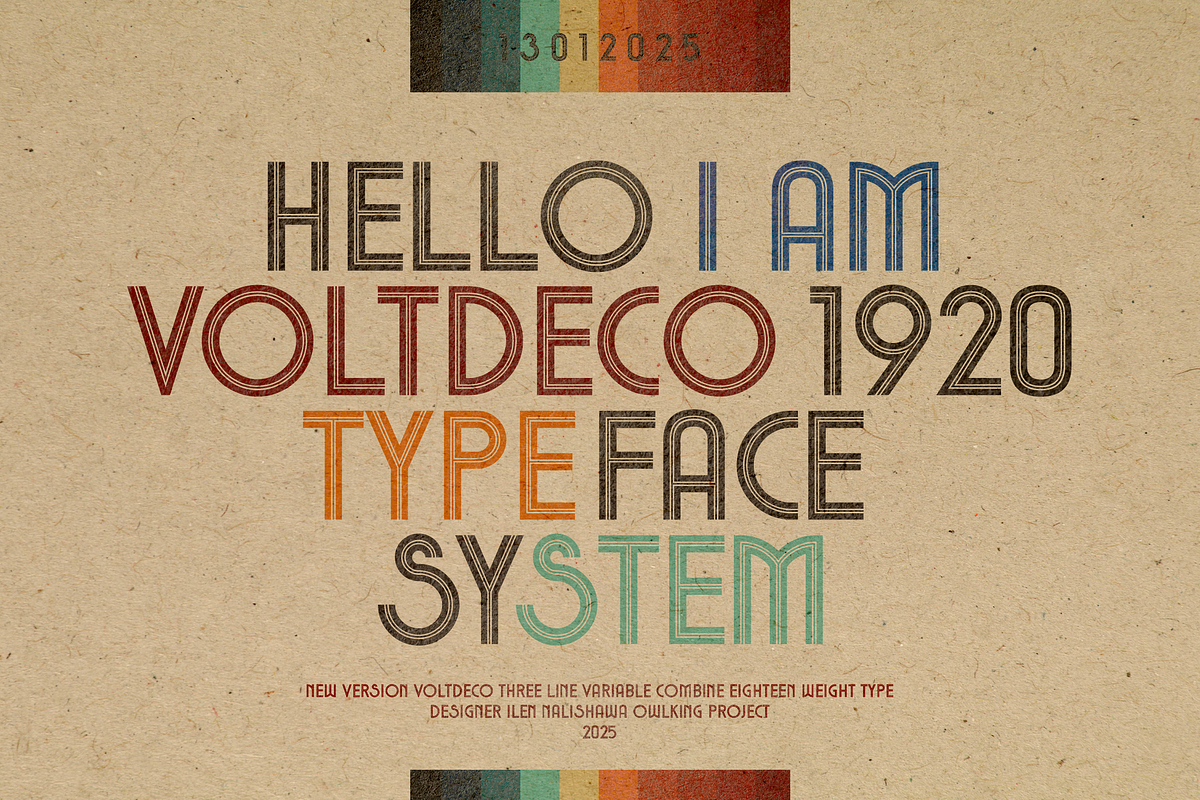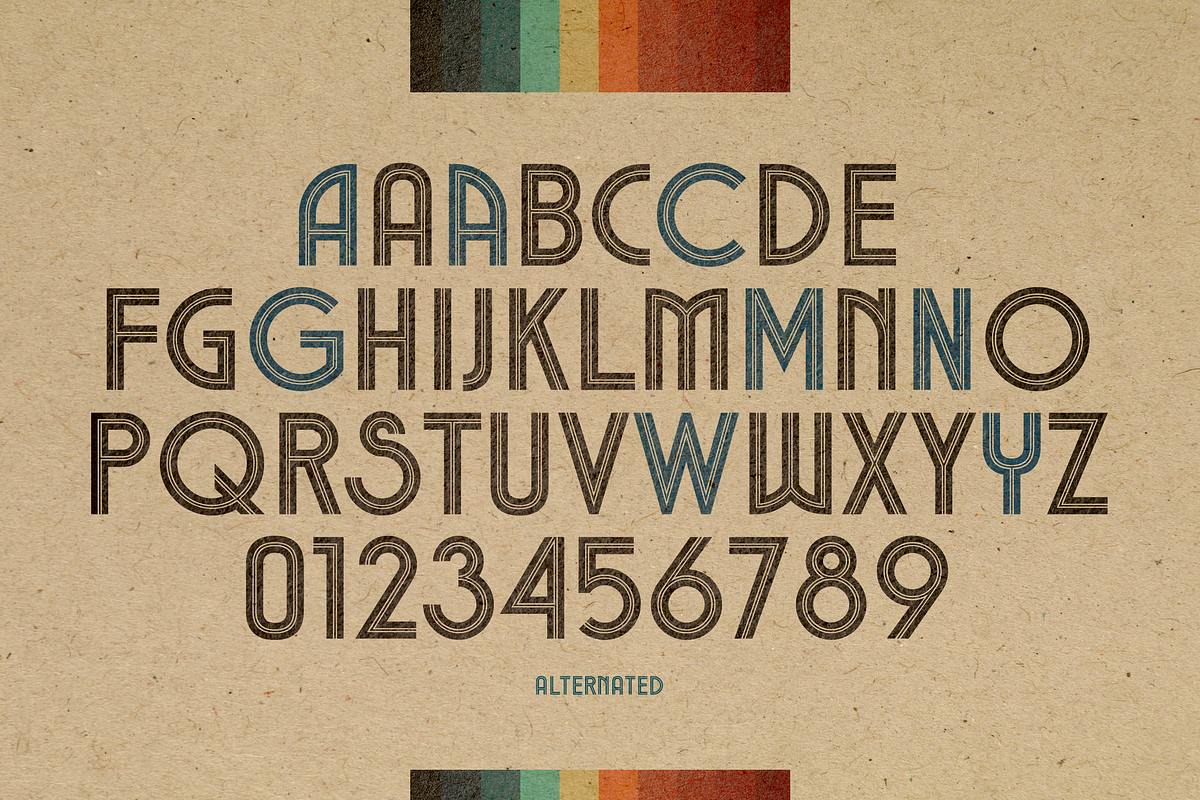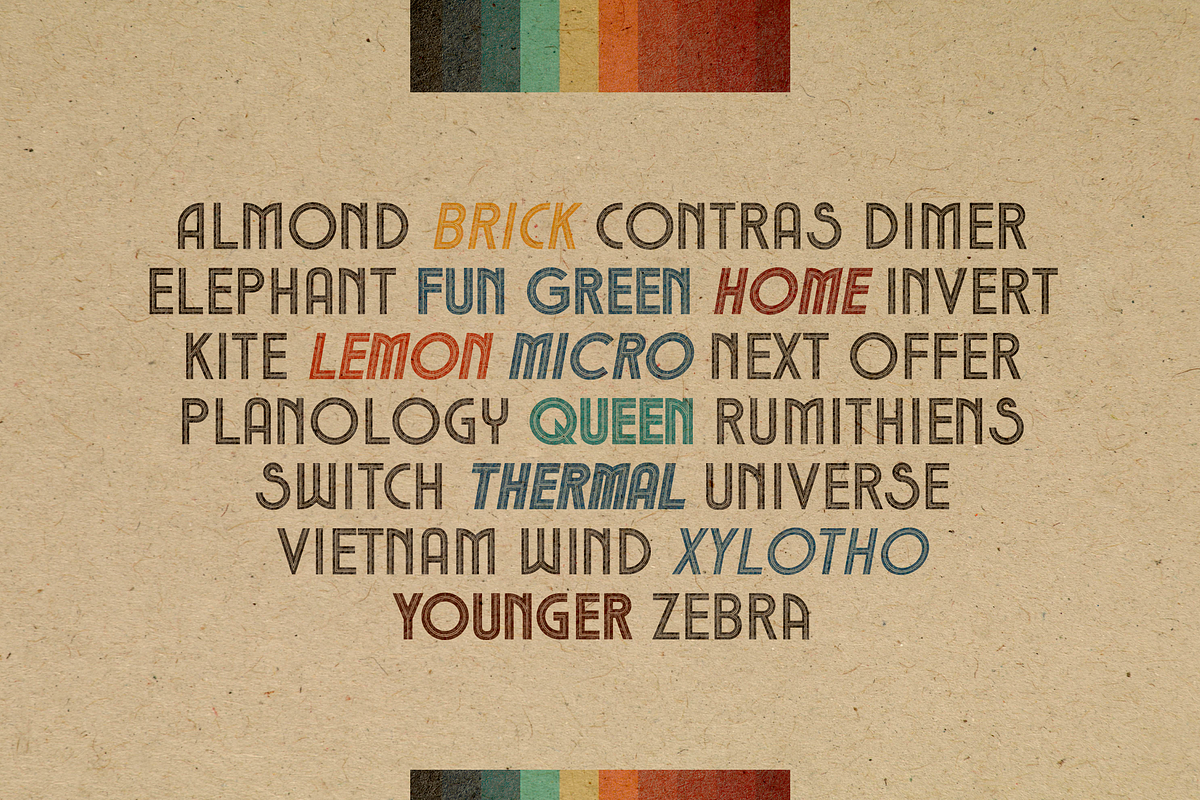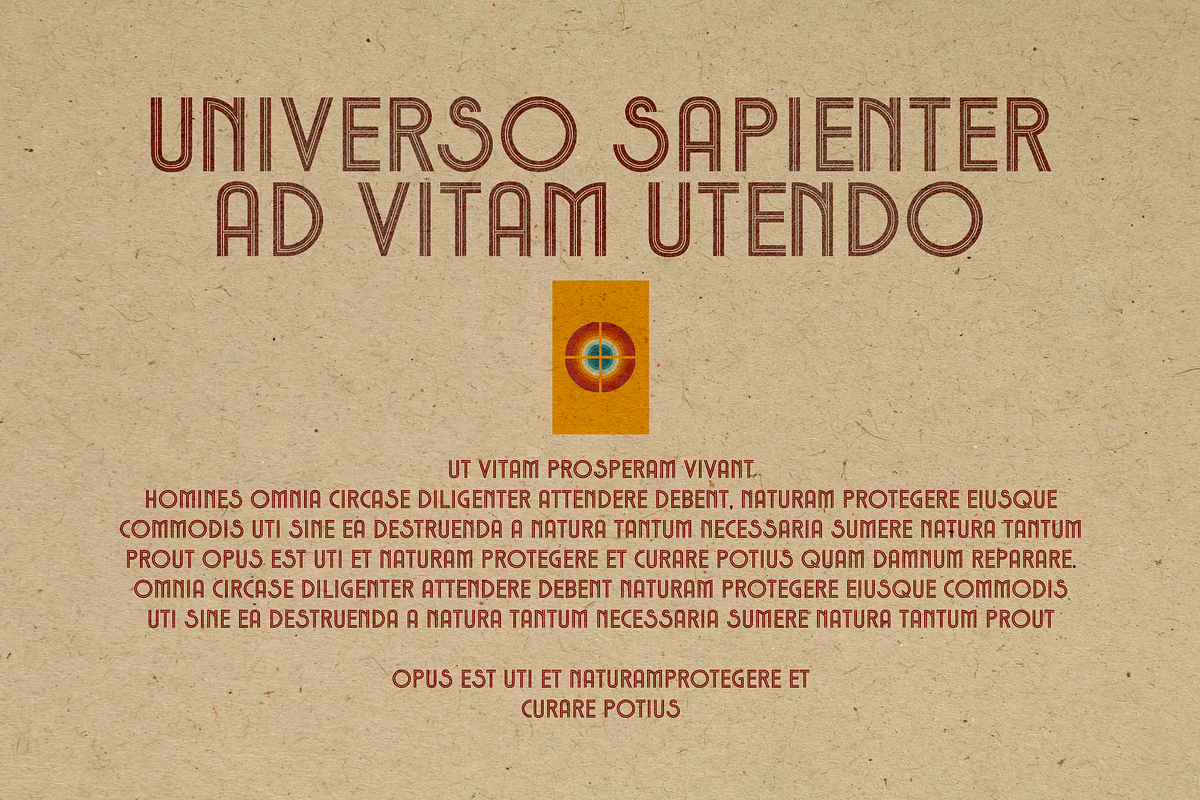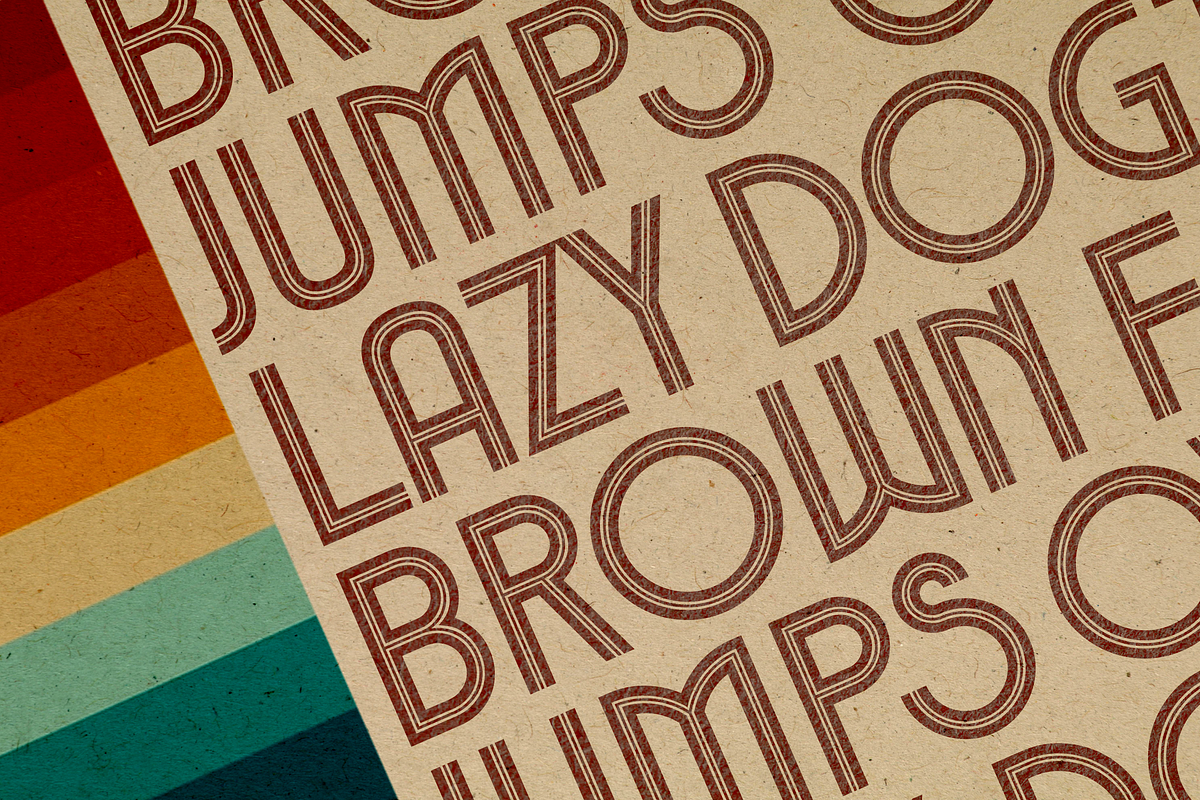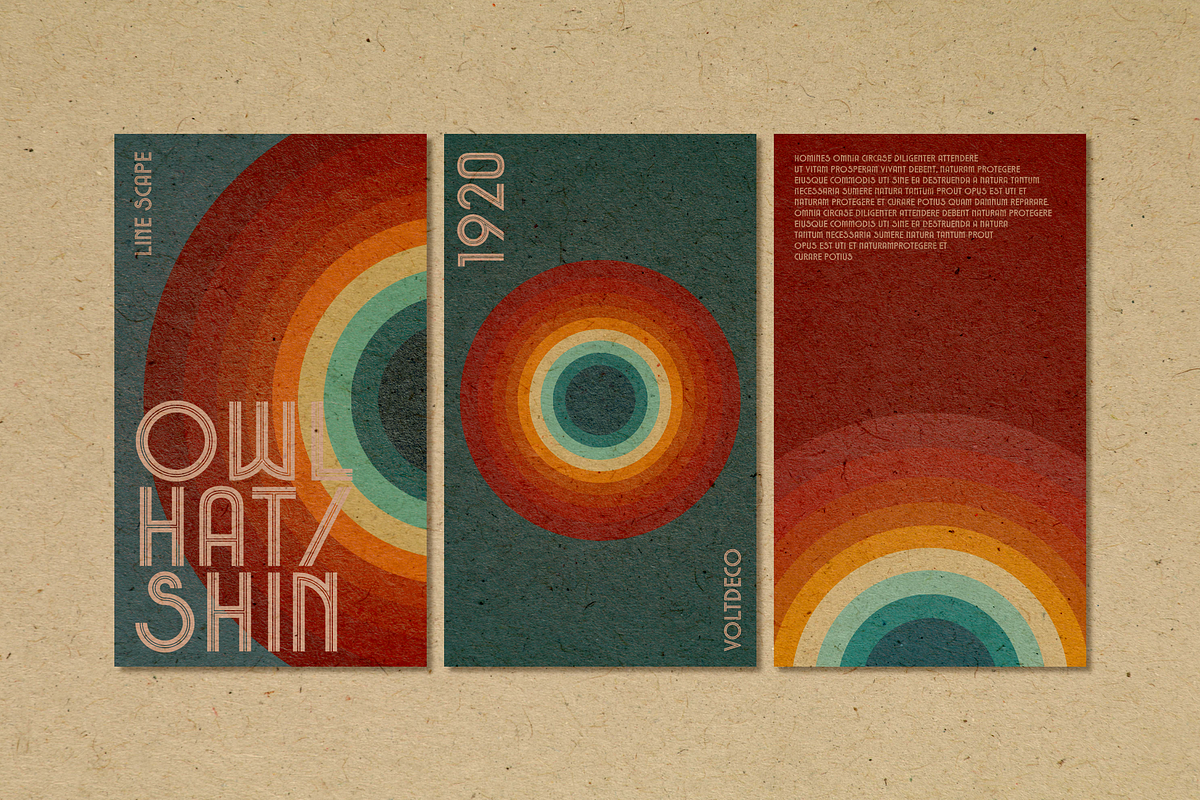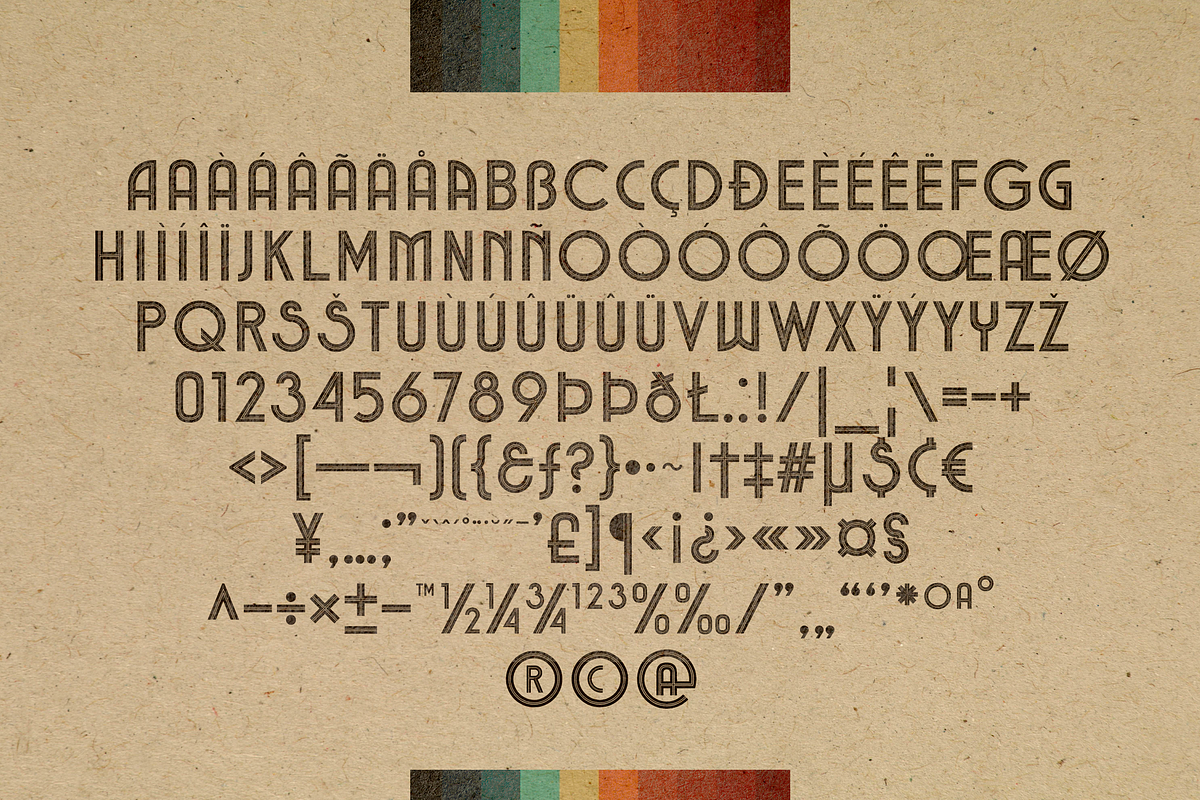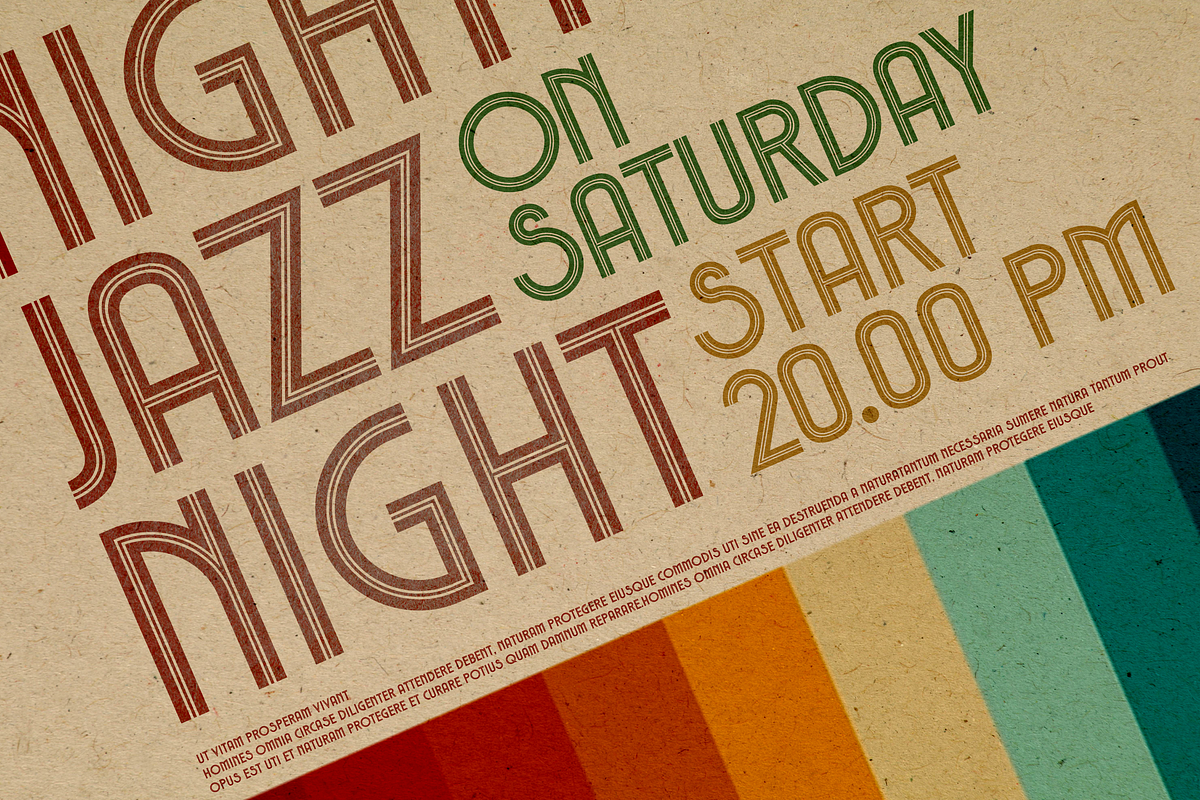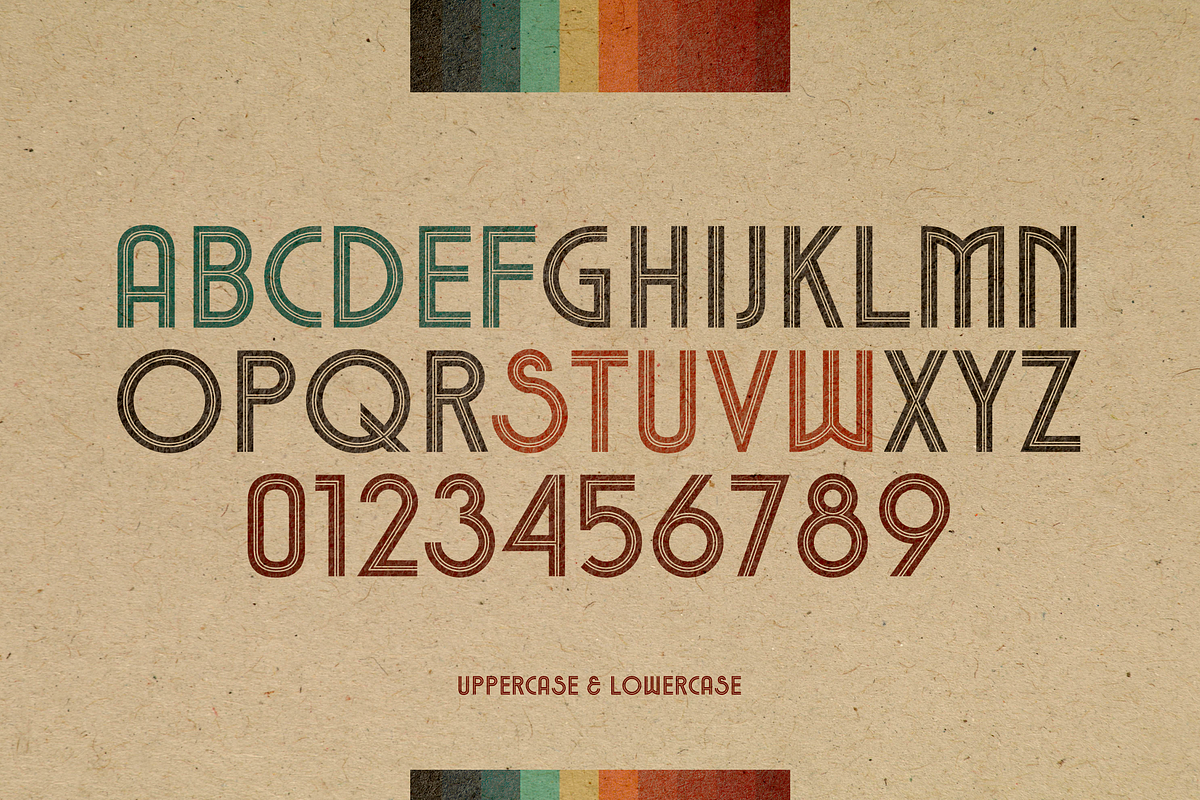
Voltdeco 1920
This typeface completes the collection through a design approach that combines strong typographic structure with refined geometric line accents. Available in 18 weights, it is created to offer broad visual exploration while maintaining a consistent character.
Designed as a modern Art Deco–inspired sans serif, it merges classic elegance with contemporary clarity. Its distinctive yet restrained character ensures versatility across creative applications. Crafted to strengthen visual identity with precision, confidence, and style.